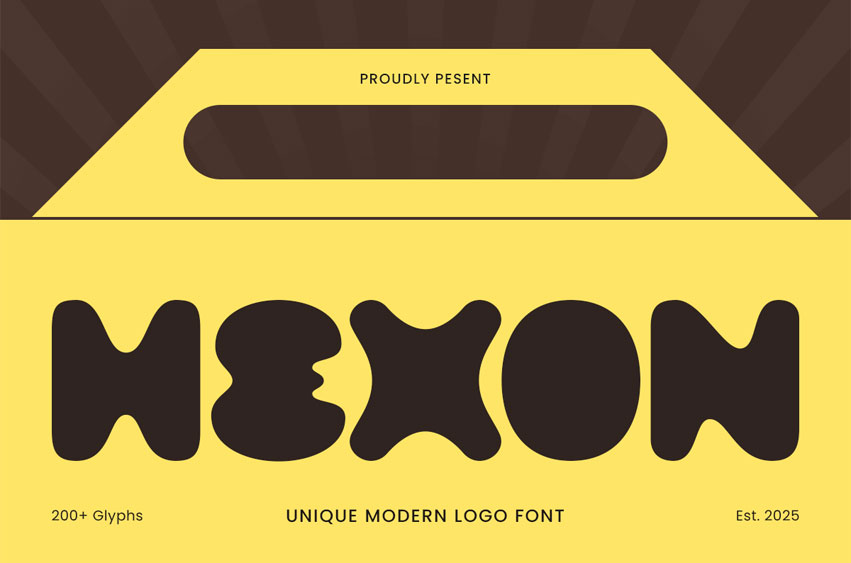
Hexon Logo Font
Hexon Logo Font is a unique modern food logo font designed to make brands look delicious, friendly, and instantly recognizable. With bold forms and a contemporary vibe, HEXON delivers an appetizing personality that works perfectly for food-focused identities—fun, confident, and easy to read.
Ideal for restaurant and café branding, snack and beverage packaging, menu titles, product labels, and social media promotions, HEXON helps your message pop in a crowded marketplace. Its modern shapes bring a fresh, clean feel while keeping a playful warmth that suits culinary brands of all kinds.
Whether you’re crafting a fast-food logo, a specialty coffee label, or a modern food truck identity, HEXON adds a flavorful typographic signature that makes your branding look memorable across print and digital use.
HEXON – Modern Food Logo Features
• Unique modern letterforms with a food-friendly, playful tone
• Perfect for logos, packaging, menus, labels, and signage
• Strong readability for headlines and bold brand statements
• Great for restaurants, cafés, bakeries, snacks, and beverages
• Includes uppercase, lowercase, numerals, and punctuation
• Works smoothly for print, digital ads, and social media content
• OpenType features for flexible typography and layout styling